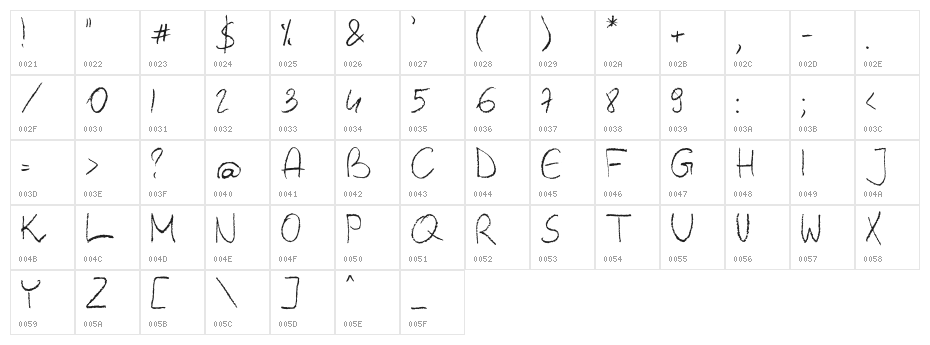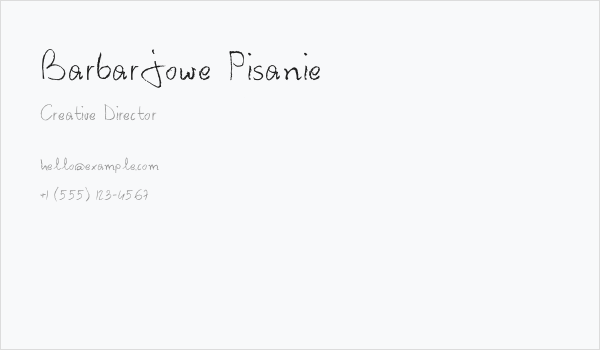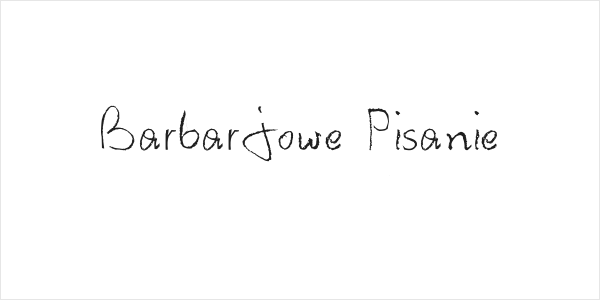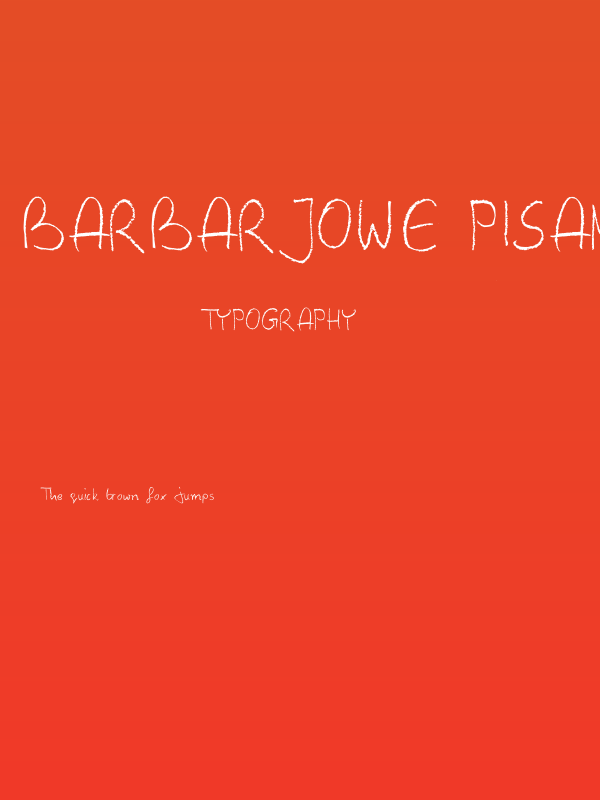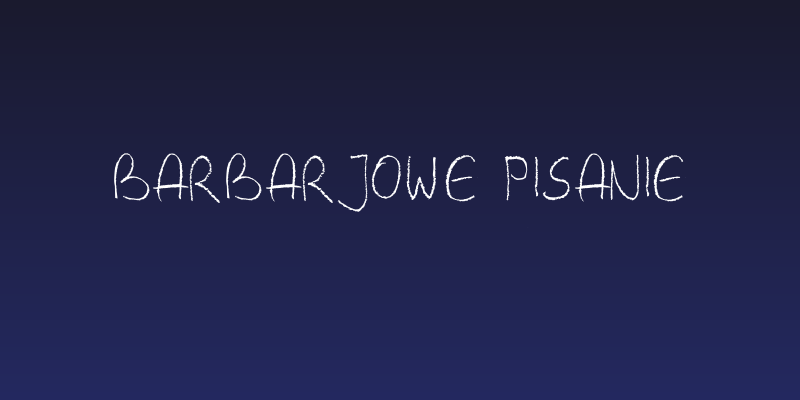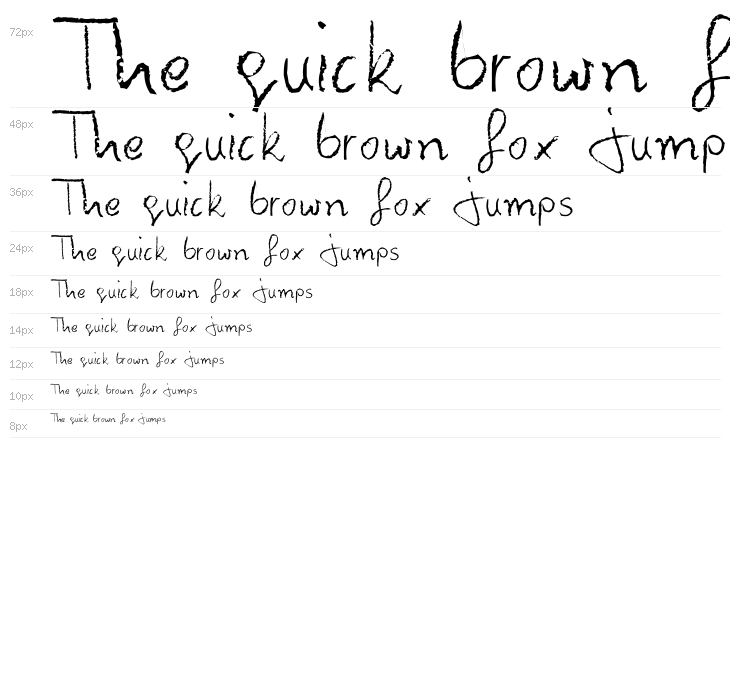
Barbarjowe Pisanie Font
Barbarjowe Pisanie Description
This font exudes a raw, hand-drawn aesthetic that captures the essence of spontaneous handwriting. Each character is uniquely crafted, with uneven strokes and varying thicknesses that give it a lively and dynamic appearance. The uppercase letters maintain a consistent height, while the lowercase letters exhibit playful variations, adding to the font's charm. Numbers and special characters are equally expressive, maintaining the overall theme of casual, artistic flair. The irregularities in the strokes suggest a personal touch, making it ideal for projects that require a human element.